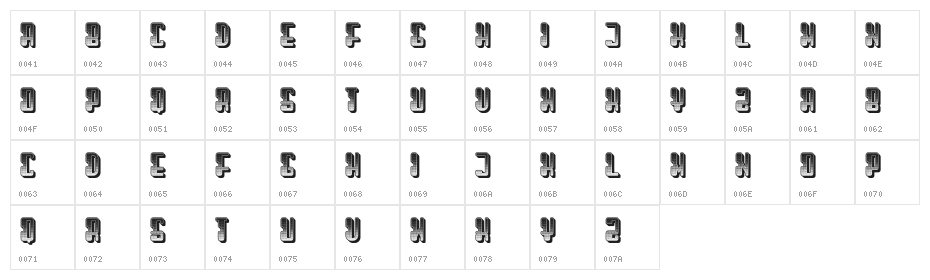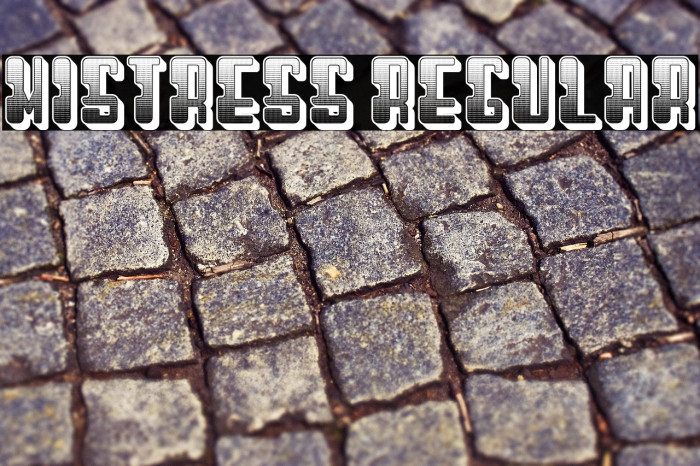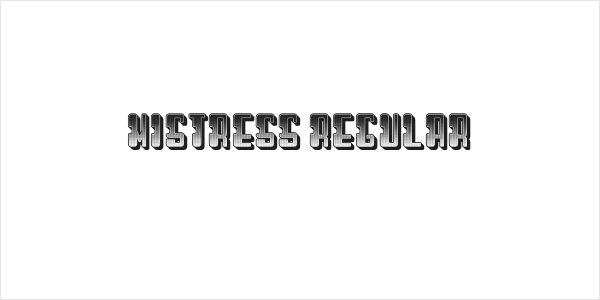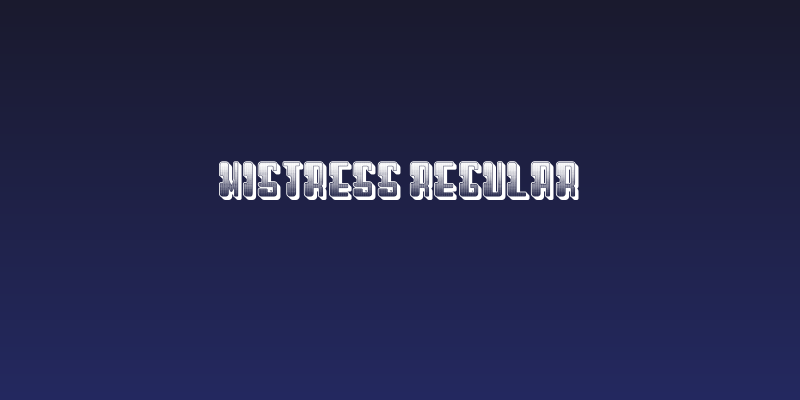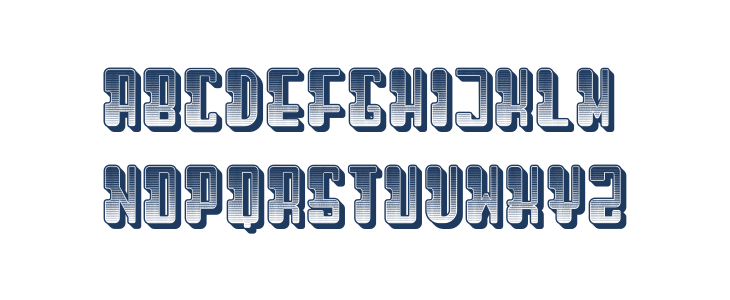
Mistress Regular Font
Mistress Regular Description
This font features a bold, decorative style with a unique grid pattern inside each character, giving it a textured, three-dimensional appearance. The letters are outlined with a thick black border, enhancing their visibility and adding a shadow effect. The geometric design is consistent across all characters, creating a cohesive and striking look. The uppercase letters are uniform in height, while the lowercase letters maintain a similar width, ensuring readability. The font's playful and modern aesthetic makes it suitable for eye-catching designs.